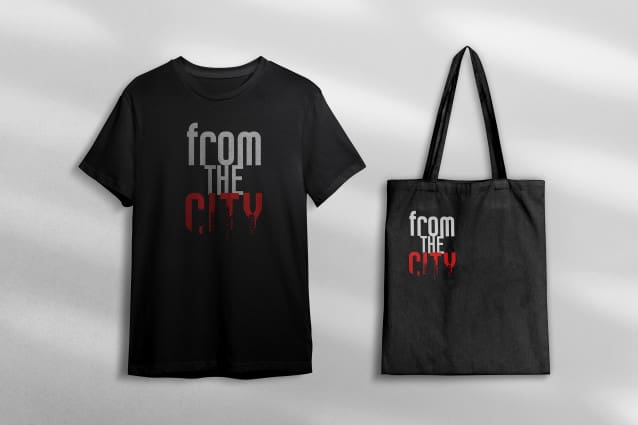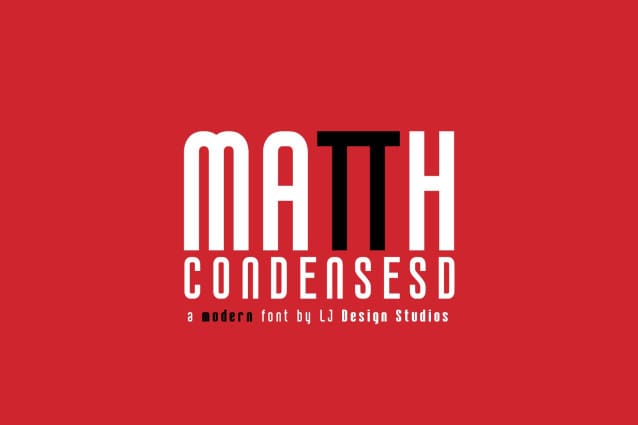
Matth Condensed Font
Matth Condensed Font is a typeface designed by Luis Jaramillo from LJ Design Studios with a condensed style, simple semi-round style, we think it’s perfect for logos, prints, t-shirts and much more.